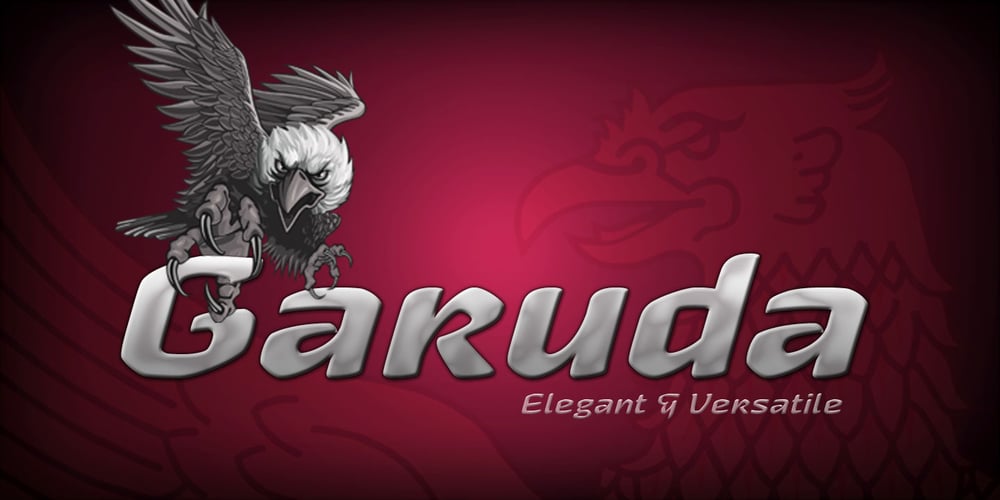
Garuda
Garuda font
Garuda Font Family was designed by Andi A. W. Masry and published by Campotype. Garuda contains 3 styles and family package options. Garuda typeface, featuring the shape and style based on “Garuda Pancasila”, the state symbol of the Republic of Indonesia. Garuda is a mythical bird in the Javanese puppet stories, is very similar to the eagle. At the typeface we can find more ligatures beside than the standard. Within Garuda at least encoded 792 glyphs per weight onto major codepage: win 1252, 1250, 1254, 1257 including Mac OS Roman. It is containing more OpenType features such as swash, contextual alternate, stylistic, figures/number, and a few bit ornaments. The typeface has a pretty good readability and legibility even in small sizes. So it is useful for short texts (text length? Whom fear) for print and screen material. Usage on headlines, posters, titles, or something like that, can utilize ornament lines as a sweetener. Please find more information about the OpenType Manual of this typeface on the gallery page (pdf).